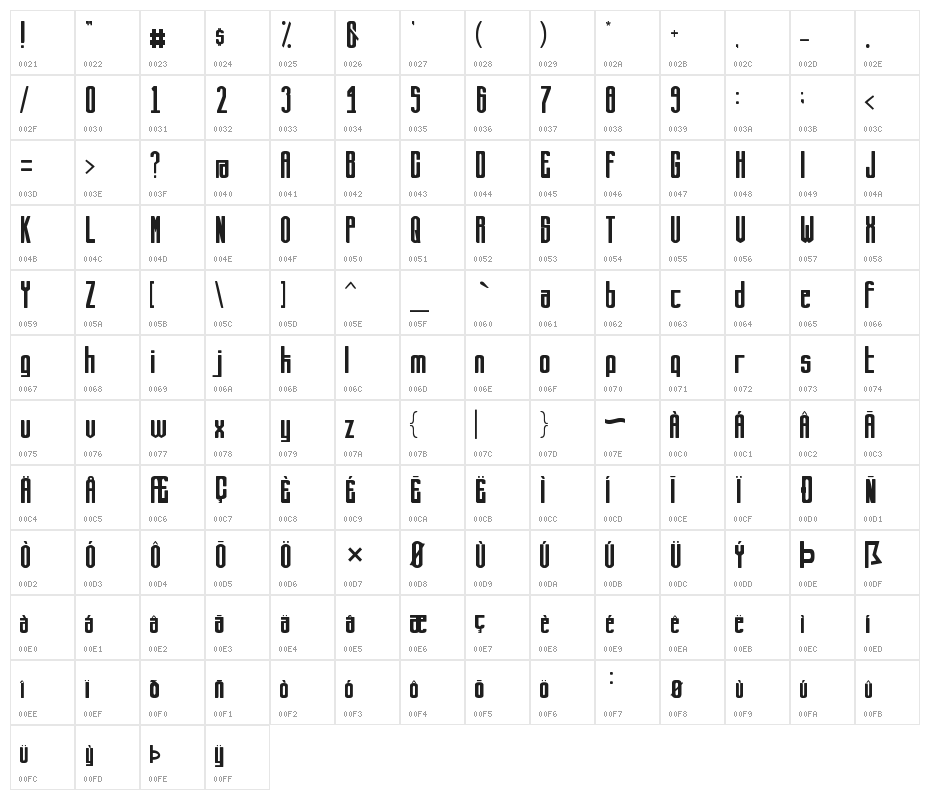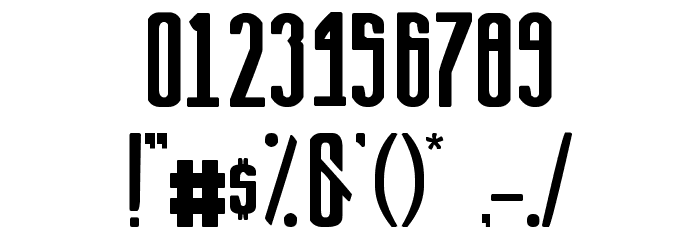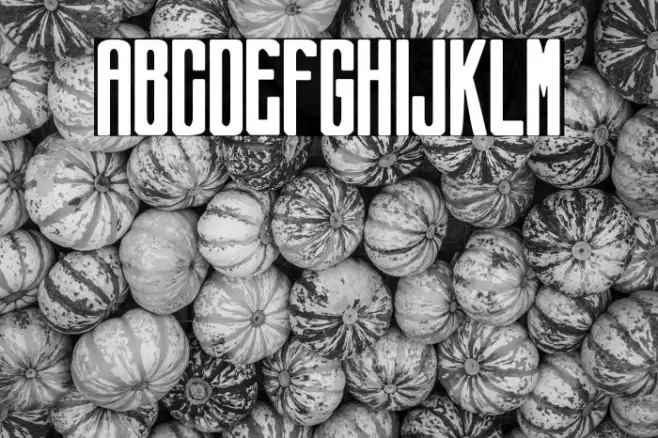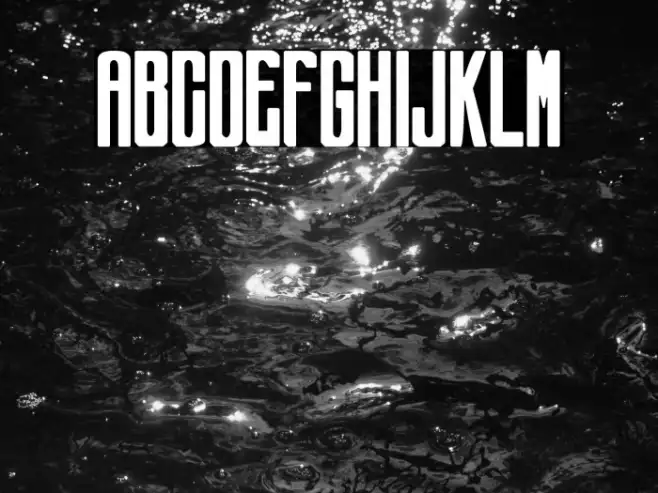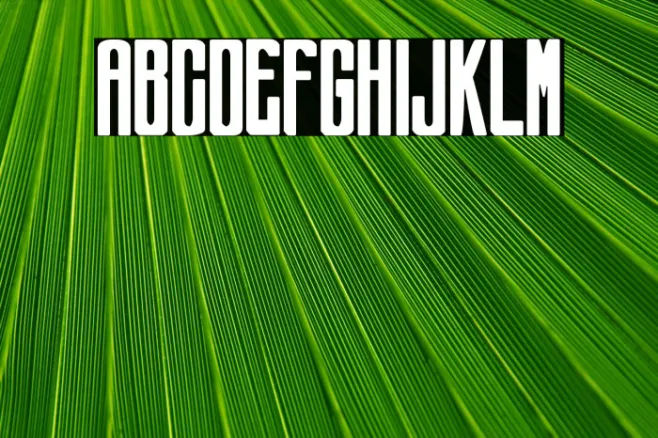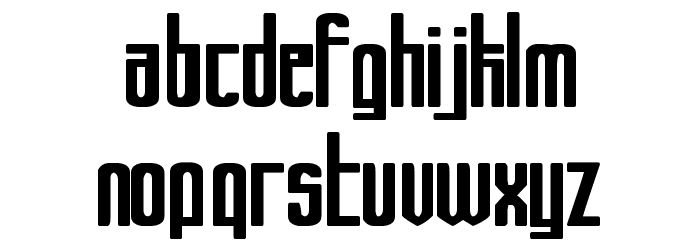
BASO TAHU Font
BASO TAHU Description
This font features a bold and condensed style with a modern and geometric appearance. The uppercase letters are tall and narrow, giving a strong vertical emphasis, while the lowercase letters maintain a consistent height that complements the uppercase. The numbers are similarly styled, ensuring uniformity across all characters. The special characters are designed to match the overall aesthetic, with sharp angles and clean lines. This font's design is ideal for creating impactful headlines and titles, where a strong and assertive presence is desired. The character spacing is tight, enhancing the compact and cohesive look of the text.